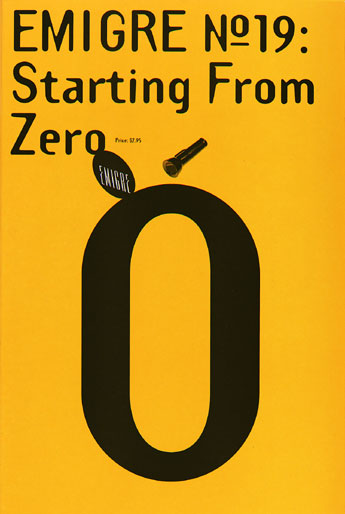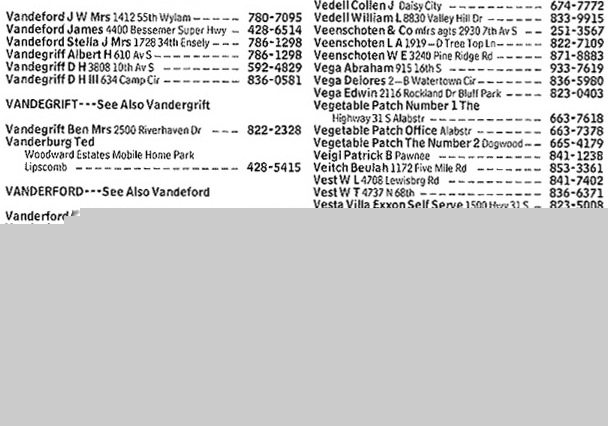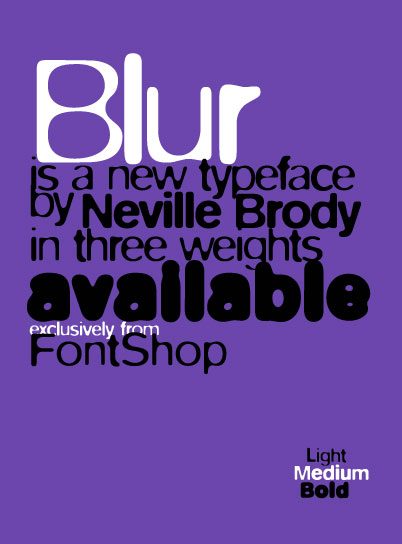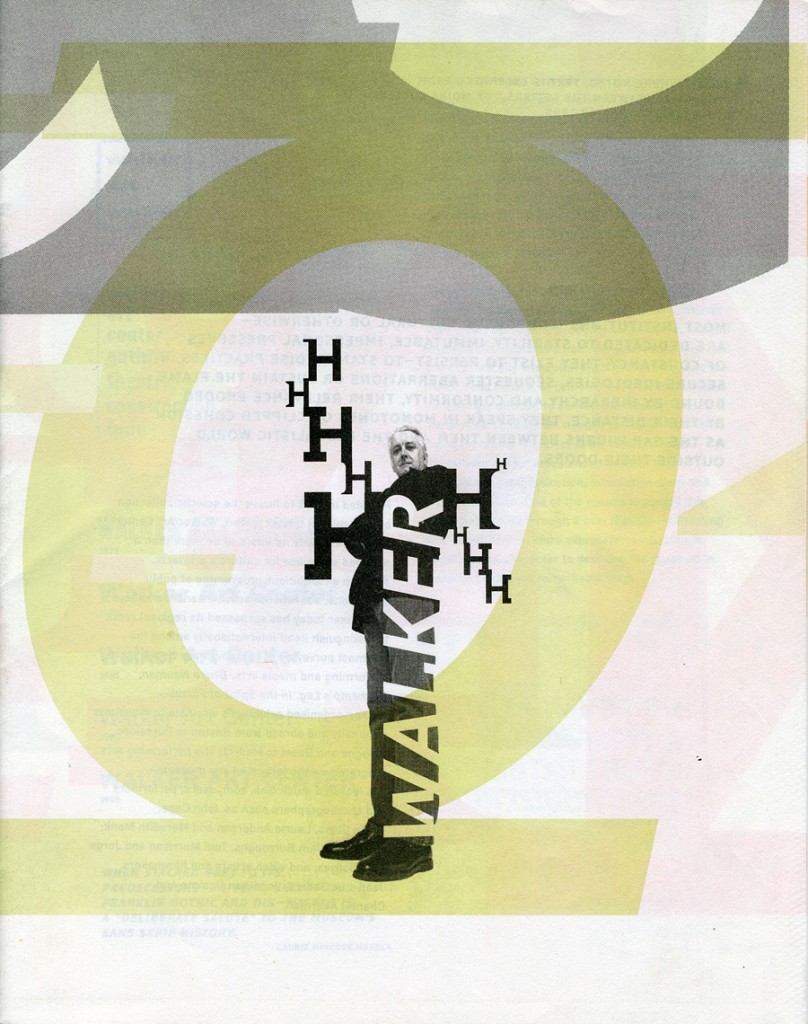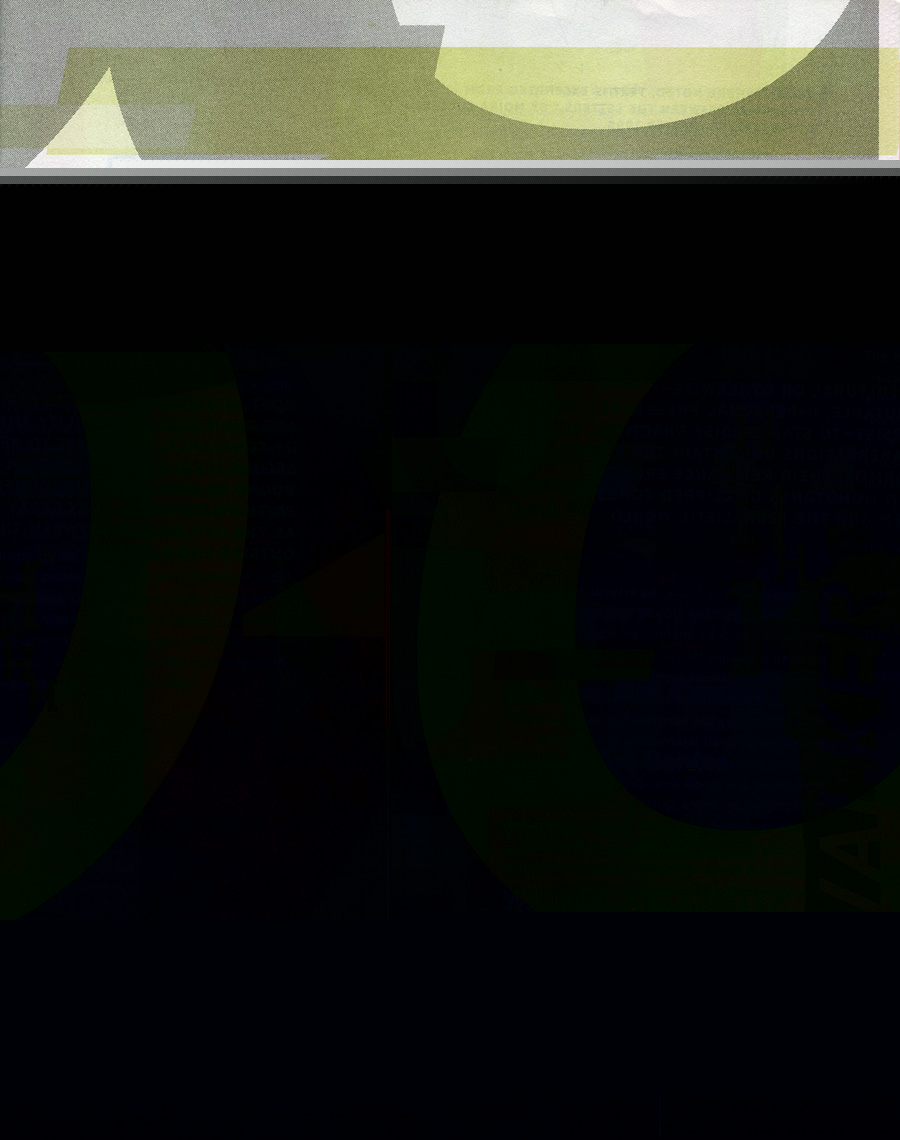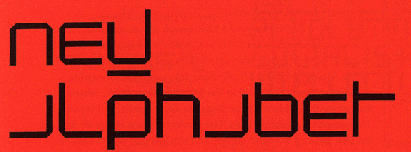
MoMA has just acquired 23 digital typefaces for its Architecture and Design Collection. Some are of everyday use, like Verdana; others are familiar characters in our world, like Gotham, which was used in President Obama’s election campaign, or OCR-A, which we can find at the bottom of any product’s bar code; and others are still less common, but exquisitely resonant, like Walker or Template Gothic.
Helped by a panel of expert advisors that included graphic design critics, designers, and historians, we based our decisions on the same criteria—ranging from aesthetics to historical relevancy, from functionality to social significance, from technological ingenuity to economy—that we use when evaluating objects. We paid particular attention to the synthesis of goals, means, and elegance that we always seek in modern design.
This first selection of 23 typefaces represent a new branch in our collection tree. They are all digital or designed with a foresight of the scope of the digital revolution, and they all significantly respond to the technological advancements occurring in the second half of the twentieth century. Each is a milestone in the history of typography. These newly acquired typefaces will all be on display in Standard Deviations, an installation of the contemporary design galleries opening March 2 on the third floor.
The digital fonts, like most objects in the design collection, are commercially available design products. As such, they can be purchased from the original producers—aptly called foundries. The fonts are akin to, say, an iPod, a Braun clock, or a Konstantin Grcic chair. MoMA has either purchased them or obtained them as gifts, but the copyright and the right to sell a user’s license remain with the original manufacturer.
Type Design and MoMA’s Collection
Type design follows the history of object and building design throughout the centuries; it similarly reflects social developments, advances in materials and means of production, cultural biases, and technological progress. Just like the design of artifacts and buildings, in the past two centuries type design has grappled with the industrial revolution first, and the digital revolution later. Just like architecture and object design, type design has had Modernist and postmodernist phases; like other designers, type designers have felt the need to find new inspiration in traditional examples, in the vernacular, and in popular culture. Type is a design universe unto itself, an essential dimension in the history of modern art and design. Typefaces—the building blocks of information printed or displayed onscreen—are design in and of themselves, even before they are used.
And yet, aside from a very important example—the 36-point Helvetica Bold lead type designed by Max Miedinger in 1956—previously there were no typefaces in MoMA’s collection. We did have a rich collection of works produced using typography in innovative, elegant, and unconventional ways, for example the exceptional, recently exhibited collection of posters from the Neue Typographie movement. However, the design units in those works, so fundamental in our collection of design, were missing. The best of them belong in MoMA’s collection, and although we are beginning with the digital era, we intend to work backwards to document the entire twentieth century.
The 23 acquired typefaces are:
• American Type Founders OCR-A (1966)
• Wim Crouwel New Alphabet (1967)
• Matthew Carter Bell Centennial (1976-78)
• Matthew Carter ITC Galliard (1978)
• Erik Spiekermann FF Meta (1984-1991)
• Zuzana Licko Oakland (1985)
• Jeffery Keedy Keedy Sans (1991)
• Erik van Blokland and Just van Rossum FF Beowolf (1990)
• Barry Deck Template Gothic (1990)
• P. Scott Makela Dead History (1990)
• Jonathan Hoefler HTF Didot (1991)
• Neville Brody FF Blur (1992)
• Jonathan Barnbrook Mason (1992)
• Matthew Carter Mantinia (1993)
• Tobias Frere-Jones Interstate (1993-95)
• Matthew Carter Big Caslon (1994)
• Albert-Jan Pool FF DIN (1995)
• Matthew Carter Walker (1995)
• Matthew Carter Verdana (1996)
• Jonathan Hoefler and Tobias Frere-Jones Mercury (1996)
• Matthew Carter Miller (1997)
• Jonathan Hoefler & Tobias Frere-Jones Retina (1999)
• Jonathan Hoefler & Tobias Frere-Jones Gotham (2000)
Historical Background on the Evolution of the Digital Typefaces Proposed for Acquisition
Experimentation in the digital realm began in the 1960s, prompted at times by the problems faced as computers became more mainstream. For example, businesses needed to find ways to process information efficiently, and in 1966 OCR-A, the first machine-readable typeface, was adopted as a standard. Also at this time, screens were introduced as windows into the inner workings of a computer—the first real interfaces. Letterpress and Linotype (hot metal) machines gave way to early CRT (cathode ray tube) monitors and photographic reproduction technology. Inspired by this, Wim Crouwel proposed New Alphabet (1967), an experimental typeface designed to take CRT monitors into account when setting type on a computer. In the second half of the 1980s, a new revolution spurred by the Macintosh home computer took Crouwel’s experiment further. Zuzana Licko was among the first to create typefaces made of pixels and composed of dots on a grid, meant to be used onscreen, and to be printed on early dot-matrix printers.
As computer programs for type design became more sophisticated in the 1990s, designers felt free to experiment in ways that had not been possible before—for instance, creating a typeface from a laundromat sign, as Barry Deck did when he designed Template Gothic (1990), or designing a new typeface, as Jeffery Keedy did in 1991 because the fonts available did not satisfy his needs as a graphic designer. Even the history of typography got special treatment in this era, becoming a repository of timeless and universal ideas ready to be updated, while popular culture provided familiarity, closeness, and a collection of idiosyncratic curiosities ready to be re-imagined, from highway signs to punk leaflets. Just like in music and fashion, mash-ups of existing typefaces were mixed with homages to stonecutters of the past—P. Scott Makela’s Dead History (1990) and Jonathan Barnbrook’s Mason (1992) are good examples.
Those were exciting and euphoric times for designers, with heated debates lighting up conferences and journals. On the one hand, some designers were bent on pushing the limits of visual communication one character at a time—as in the intentionally out-of-focus letters of Neville Brody’s Blur (1992) or the randomized outlines of LettError’s Beowolf (1990)—and on defining the postmodern in type design. On the other hand, some designers continued the modernist quest for uniformity and clarity. Erik Spiekermann’s Meta (1984-1991) and Albert-Jan Pool’s redesign of the German standard typeface, DIN (1995), were formidable successors to the “classic” and oft-used typeface Helvetica.
What We Chose and Why
We chose some of these typefaces because they are sublimely elegant responses to the issues of specific media. For example, typefaces like Bell Centennial, Mercury, Miller, and Retina were all designed to be printed on newsprint, with cheap ink and in small sizes.
In many cases, advances in technology influenced the aesthetics of type. We have tried to form a comprehensive collection of the most elegant solutions to typography design in the midst of the digital revolution; typefaces like OCR-A, Oakland, New Alphabet, Verdana, and Beowolf address the span of twentieth-century type-design solutions, from CRT monitors to programming and the Internet.
Typography has a special relationship with its own past, with frequent redesigns and revivals, from among which we chose the ones that most inventively distill the essence of historical examples to give it new, contemporary life—as in HTF Didot, Galliard, Big Caslon, Mantinia, and DIN. Others, like Dead History, reference the past, but reinterpret it in new ways.
Lastly, several of the fonts we chose visually reflect very closely the time and place in which they were made. Interstate and Gotham are purely late-twentieth-century American faces, celebrating vernacular type by making it exquisitely contemporary. Walker, Meta, Blur, Keedy Sans, Mason, and Template Gothic are all faces that represent a specific era in the digital revolution—the early 1990s, when digital typography was coming into its own. They were chosen based upon their importance to cultural history as well as their experimental aesthetics.